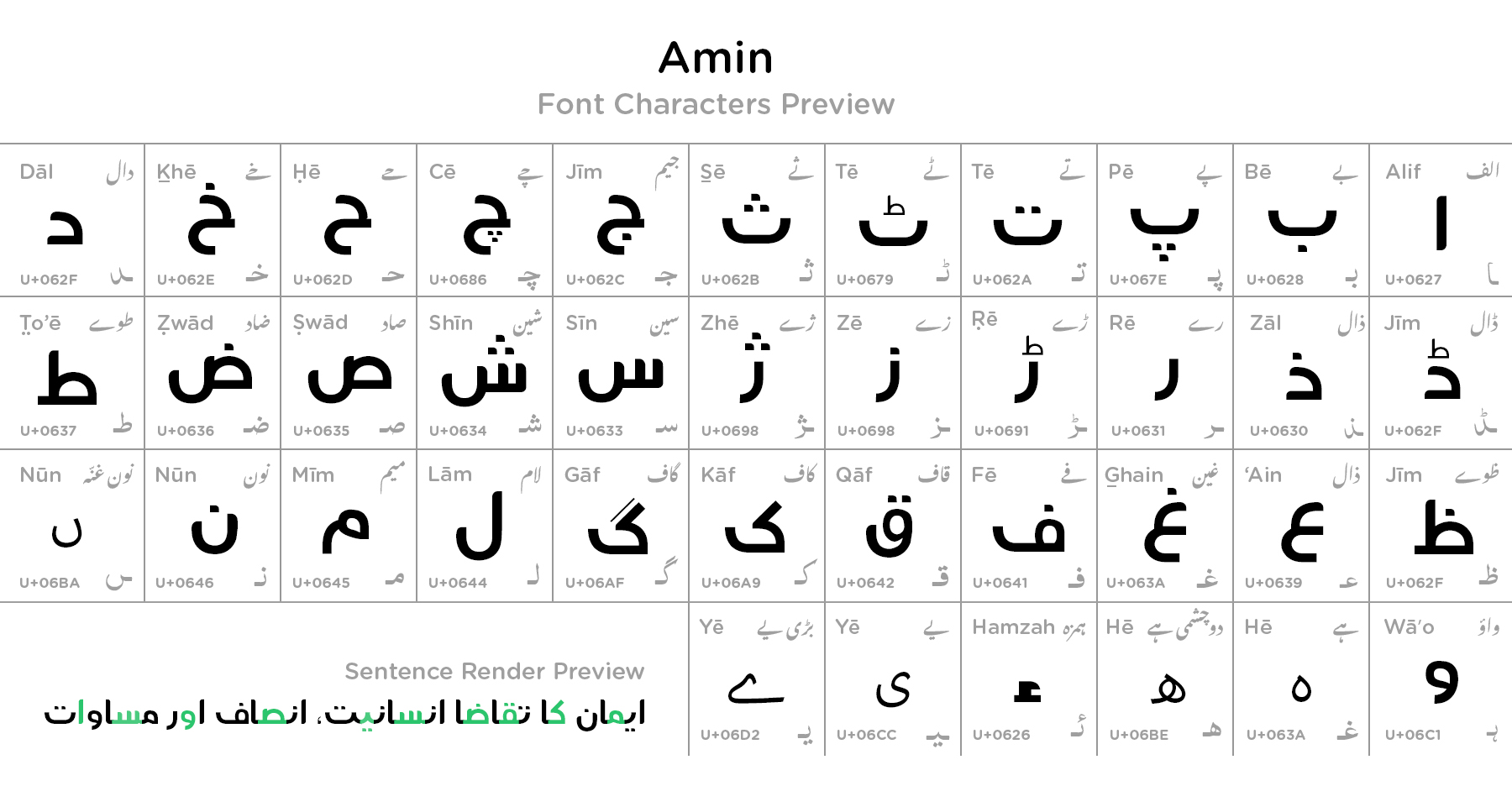
Amin is a modern, bold Arabic font with a refined appearance, perfect for your formal typographic applications. It is a trademark of Mostafa Amin and was released on 07 May 2020. Its bold weight and refined appearance make it ideal for formal typographic applications, where clarity and impact go hand-in-hand. It avoids an overly heavy look while featuring a consistent, solid thickness. This subtle difference creates a modern and polished aesthetic that elevates your design projects. Despite its boldness, the font prioritizes readability. The clear letterforms and wide spacing ensure your message is delivered with precision, even at smaller sizes. This makes this typeface an excellent choice for headings, titles, and short passages that demand immediate attention. In addition to the bold weight, it comes in 2 other font weights, which are as follow: